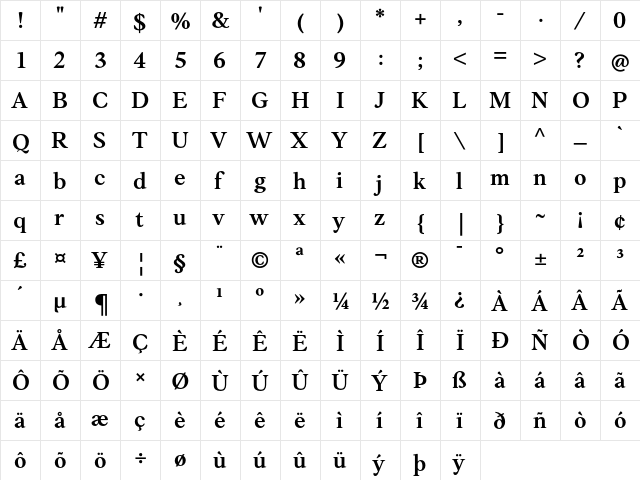
Anko Personal Use Semi Bold
| Designer | Eko Bimantara |
Design Context for Anko Personal Use Typeface
Anko Personal Use takes a measured approach to typography — its balanced proportions and neutral character make it a reliable workhorse for both digital and print work. The heavy weight commands attention and anchors typographic hierarchies.